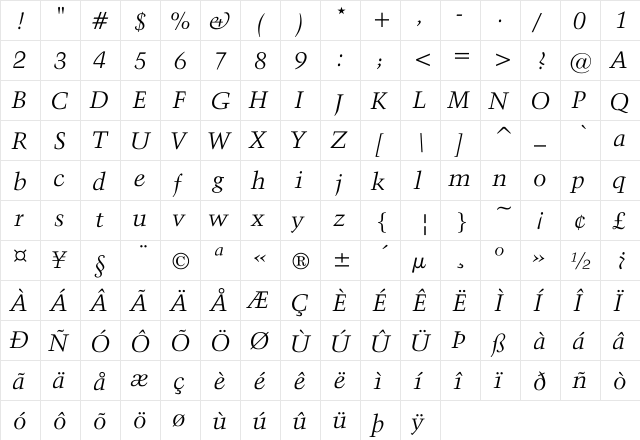
Activa-Italic Regular
Design Context for Activa-Italic Typeface
Activa-Italic offers clean, dependable letterforms without strong stylistic allegiance, making it a practical choice for designers who need flexibility. The dynamic lean of this cut emphasises speed and emphasis in any layout.
Pro Tip: Try Activa-Italic for annotation and caption copy alongside an upright companion — the contrast in angle creates a dynamic but ordered typographic system.